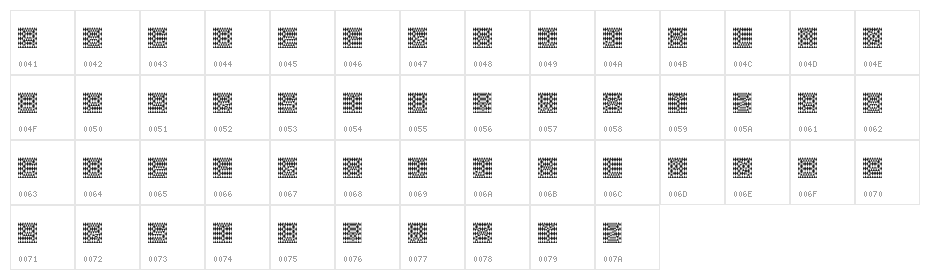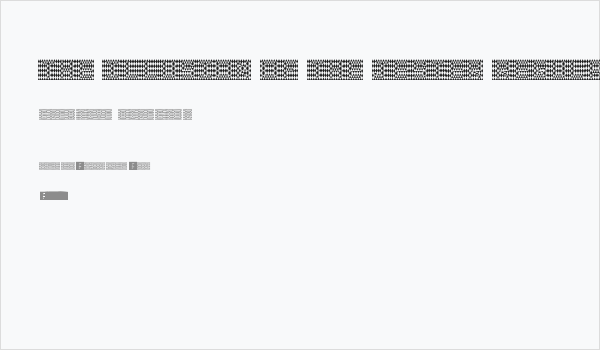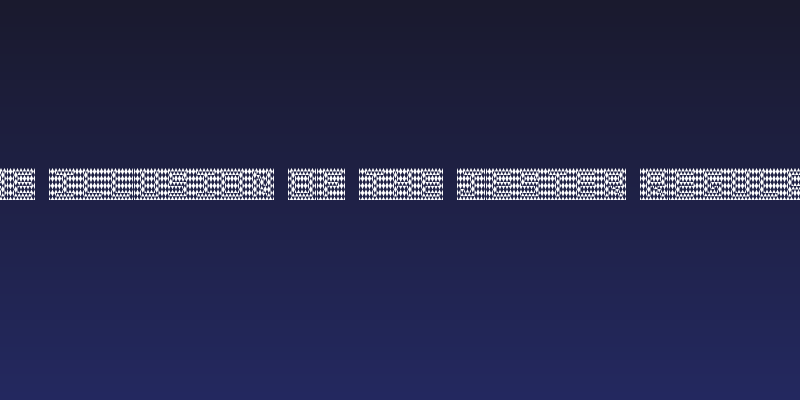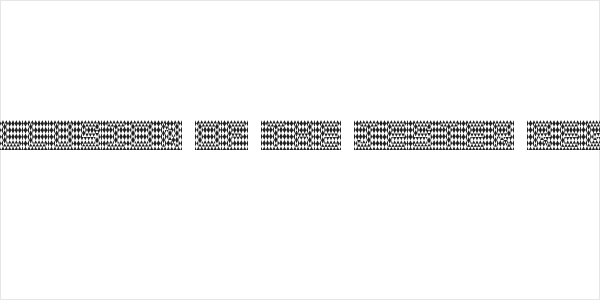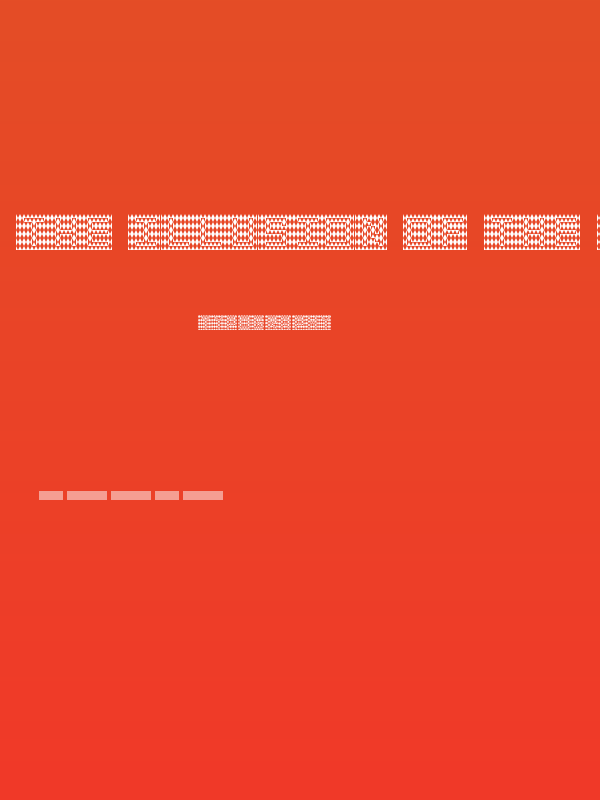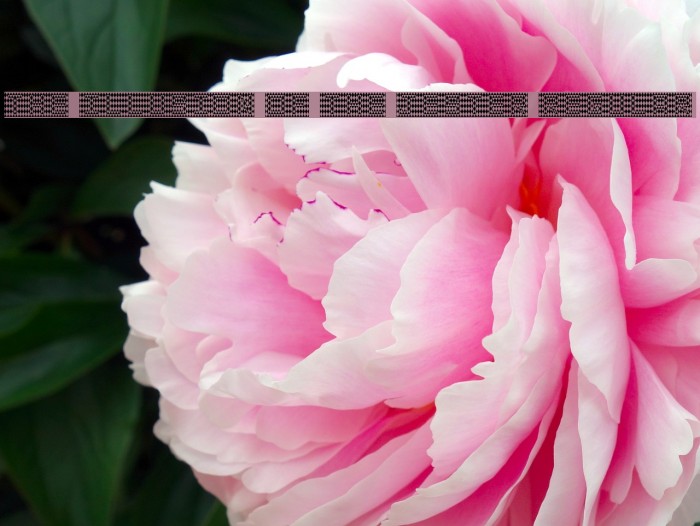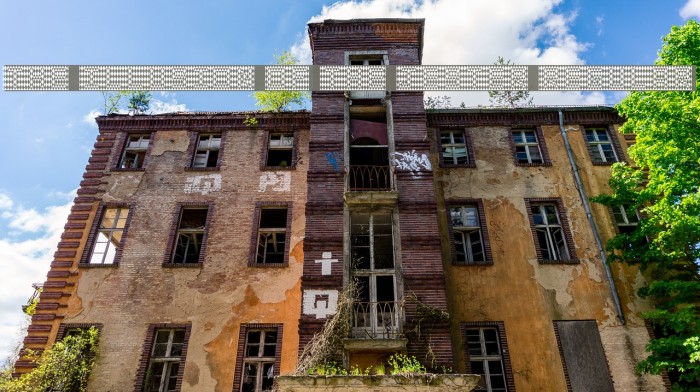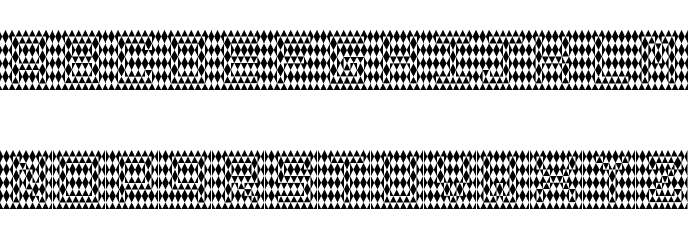
This font features a highly decorative and intricate design, characterized by a pattern of alternating black and white diamond shapes that form each letter and character. The style is reminiscent of a jester's costume, evoking a playful and whimsical feel. The letters are bold and eye-catching, making them suitable for attention-grabbing headlines or artistic projects. The geometric pattern creates a sense of movement and illusion, adding depth and complexity to the text. Each character is distinct yet cohesive within the overall design, ensuring readability while maintaining its unique aesthetic.
| Use Case | Headlines, Logos, Artistic projects |
| Proposed Projects | This font is perfect for use in creative projects such as posters, event invitations, theatrical productions, or any design requiring a whimsical and bold statement. |